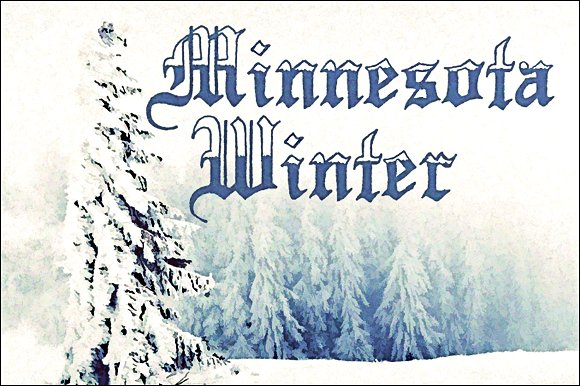
Minnesota Winter Font
About Minnesota Winter Font
Minnesota Winter Font – Blackletter – 1 Here is Minnesota Winter – a gothic, display font. I could write a bunch of stuff here, but you’ll just judge the font on its own merits anyway. Thanks for reading.